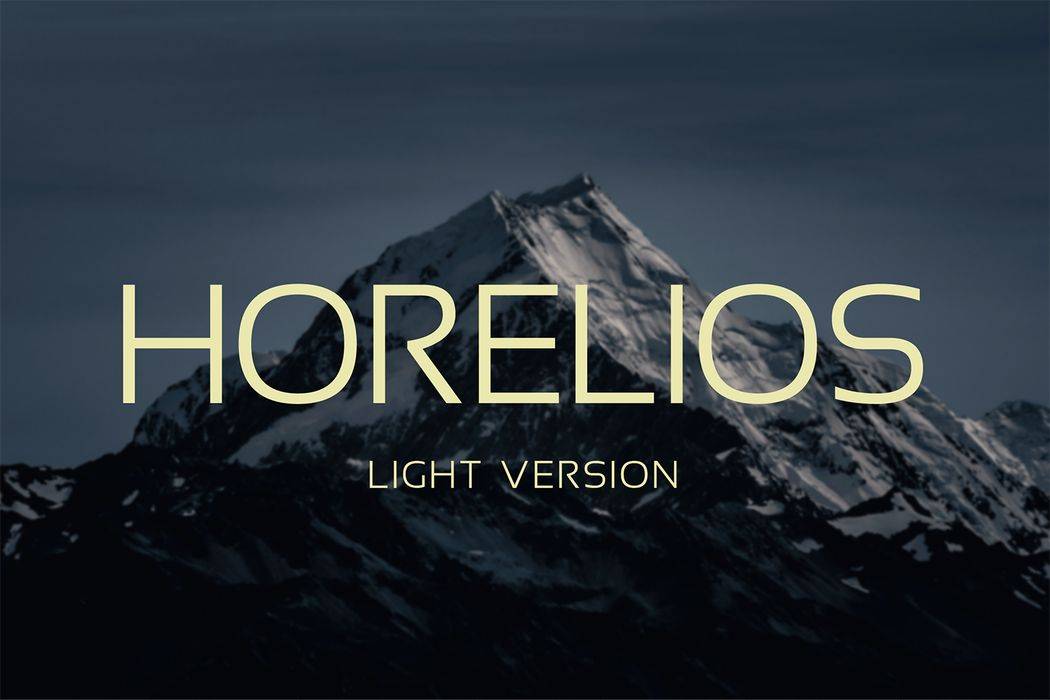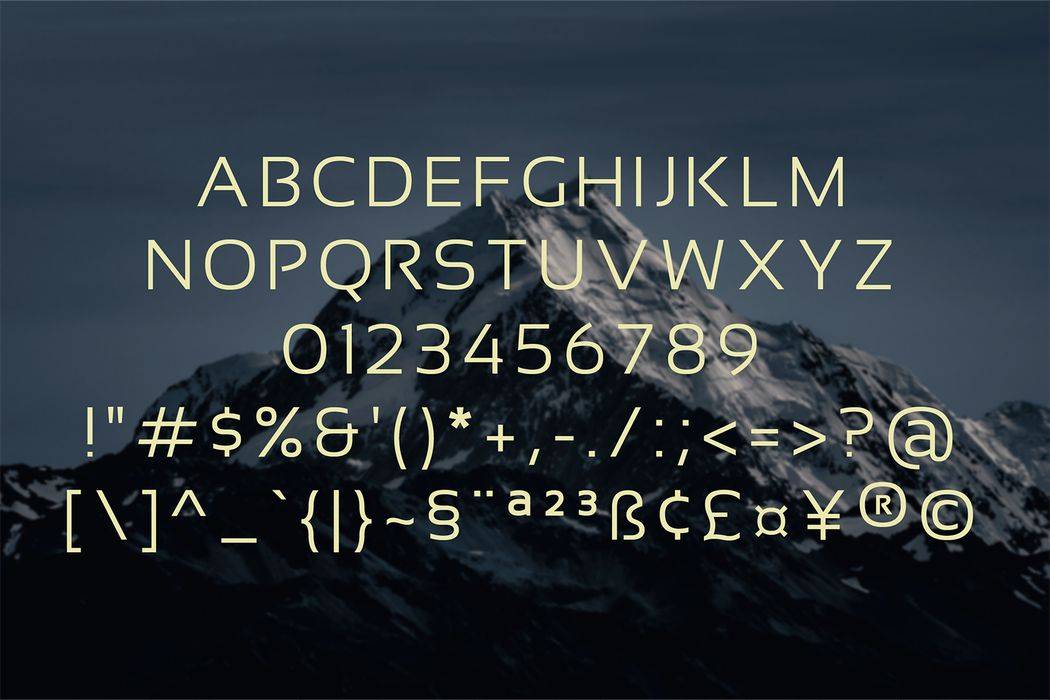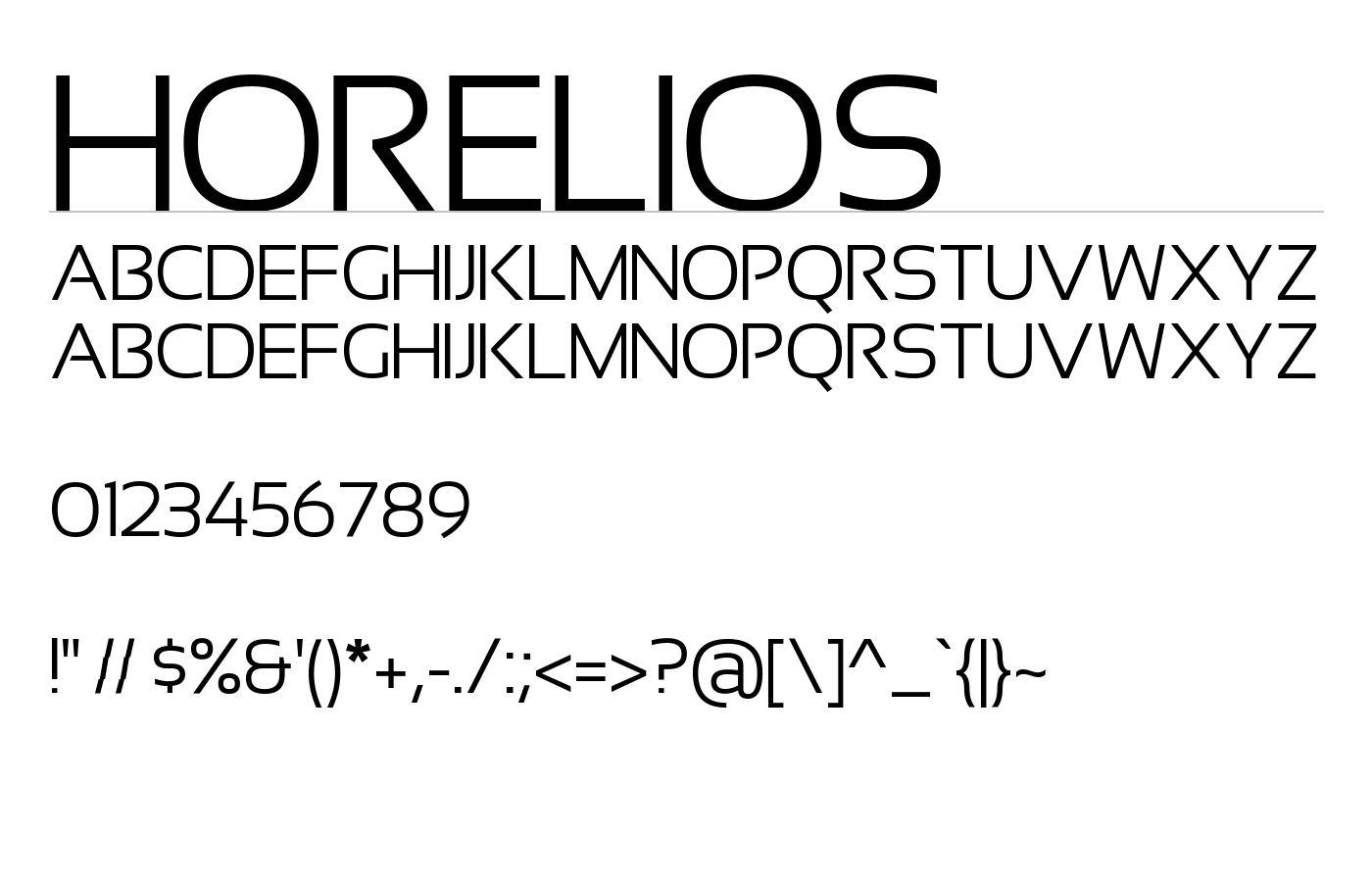
Horelios Light is a sleek, modern sans serif font characterized by its light weight and clean, geometric letterforms. With its narrow width and uniform stroke thickness, it creates an elegant, minimalist look that works beautifully for contemporary branding, editorial headlines, and digital interfaces. This font’s refined style brings a professional and sophisticated feel to designs aiming for clarity and subtlety.
Horelios Light Font
About Horelios Light Font
| Font family | Horelios Light Font |